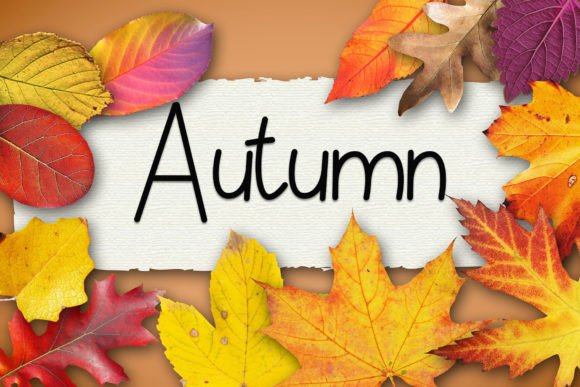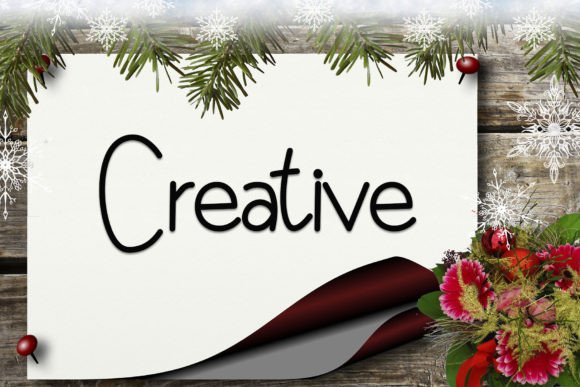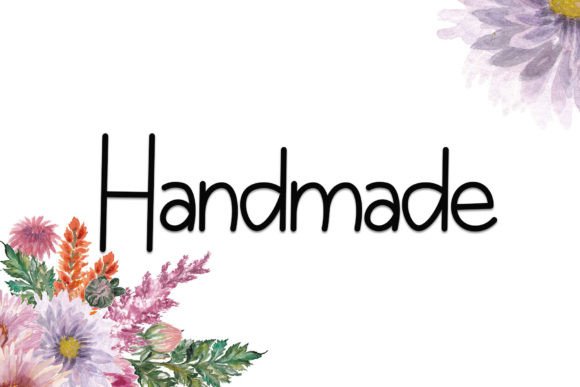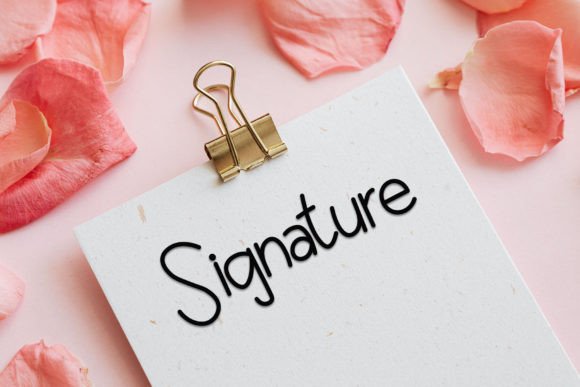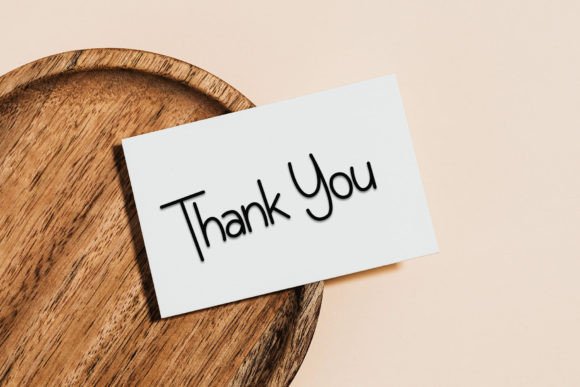
The Grazier Font: A Timeless Elegance for Your Designs
Have you ever been in the middle of a design project, and suddenly, you’re stuck on finding the perfect font? I recall a recent experience where I was working on a client’s branding project, and I just couldn’t seem to find a font that captured the essence of their elegant and sophisticated brand. That’s when I stumbled upon the Grazier font, and it was love at first sight! ✨
A Personal Review: What I Love About Grazier
The Grazier font is a neat and beautiful handwritten font that exudes an elegant touch, making it perfect for a wide range of projects. Here are some things I absolutely love about it:
- ✅ Elegant and Refined: The font has an incredibly distinct and timeless style that adds a touch of sophistication to any design.
- ✅ Versatile: Whether you’re working on a logo, branding, or marketing materials, Grazier fits right in.
- ✅ Easy to Read: Despite its elegant nature, the font remains highly legible, even at smaller sizes.
- ✅ OpenType Features: It comes with a range of OpenType features, including glyphs and stylistic alternates, which give you plenty of creative freedom.
While Grazier is an amazing font, there are a few minor quirks to be aware of:
- ⚠️ Limited Use in Non-Design Contexts: While it’s perfect for design projects, it might not be the best choice for body text in articles or long-form content due to its elegant, yet somewhat ornate nature.
- 🤔 Pairing with Other Fonts: Finding the perfect pairing font can take some experimentation, but the end result is well worth it.
The Story Behind Grazier
The Grazier font was designed with the intention of capturing the essence of timeless elegance. The designer aimed to create a font that feels both sophisticated and approachable, making it versatile for various design projects. Inspired by classic calligraphy and modern handwriting, Grazier brings a unique blend of traditional and contemporary styles.
| What makes Grazier suitable for branding projects? | Grazier’s elegant and refined style makes it perfect for branding, as it adds a touch of sophistication and professionalism to any brand identity. |
| Can I use Grazier for body text in articles? | While Grazier is beautiful, it’s more suited for headings and titles. For body text, a more straightforward font might be easier to read. |
| Is Grazier a script font? | Yes, Grazier is a handwritten script font with elegant and flowing lines. |
| Does Grazier support OpenType features? | Yes, Grazier comes with OpenType features, including glyphs and stylistic alternates, which can enhance your design work. |